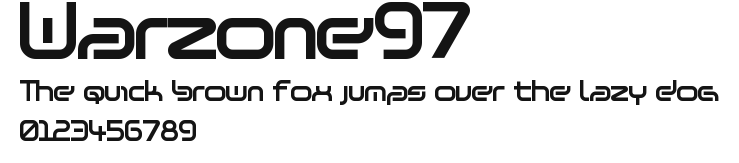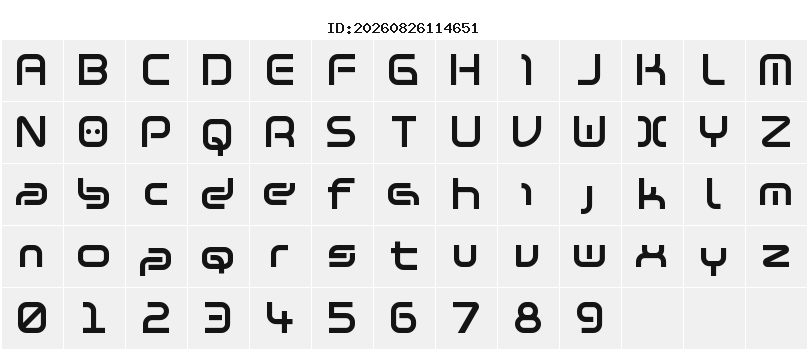
Warzone97 Preview
About Warzone97.ttf
Warzone97.ttf is a modern, elegant sans-serif font designed for ultimate readability and visual harmony. Perfect for branding, headlines, web design, and print materials.